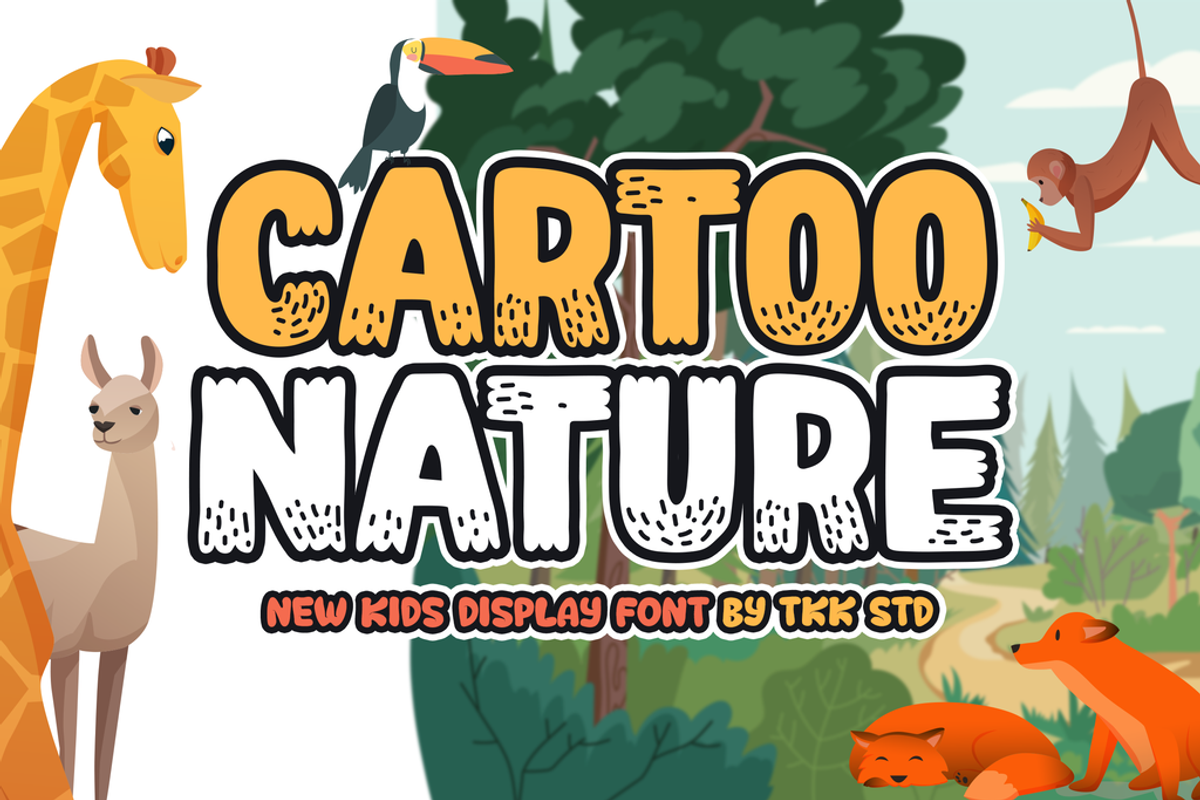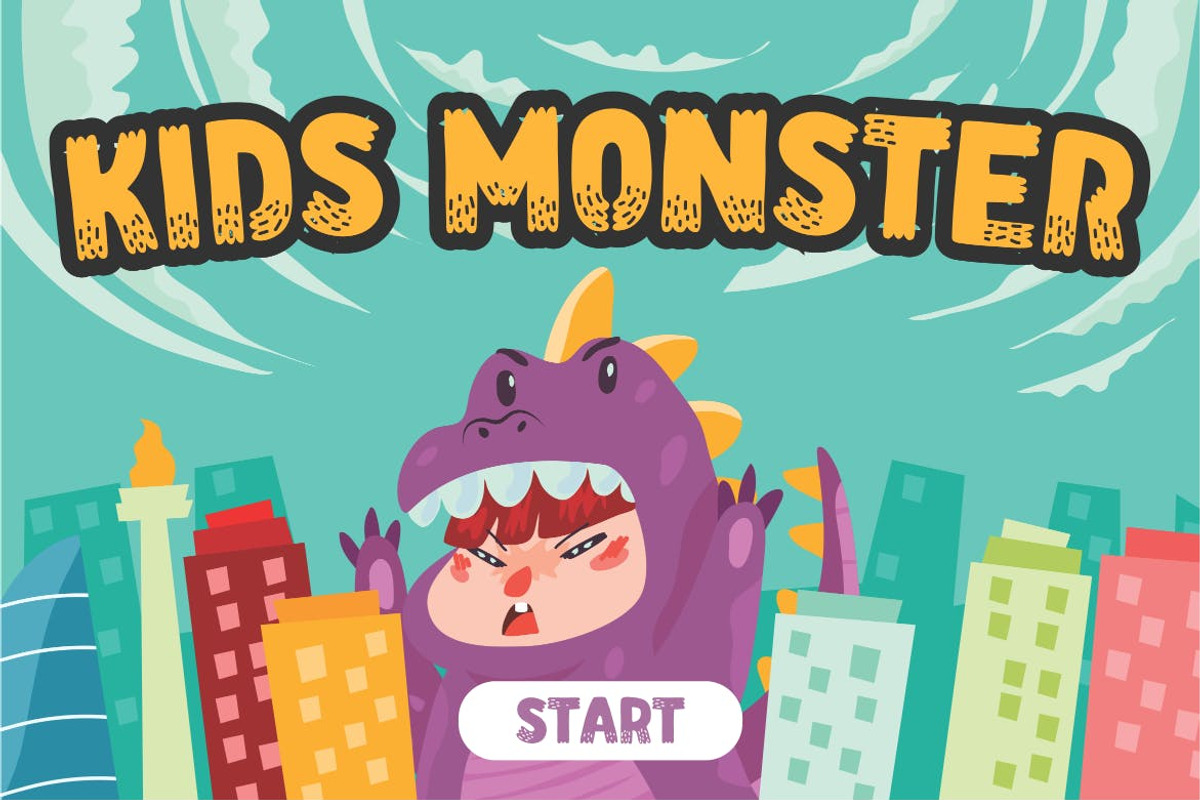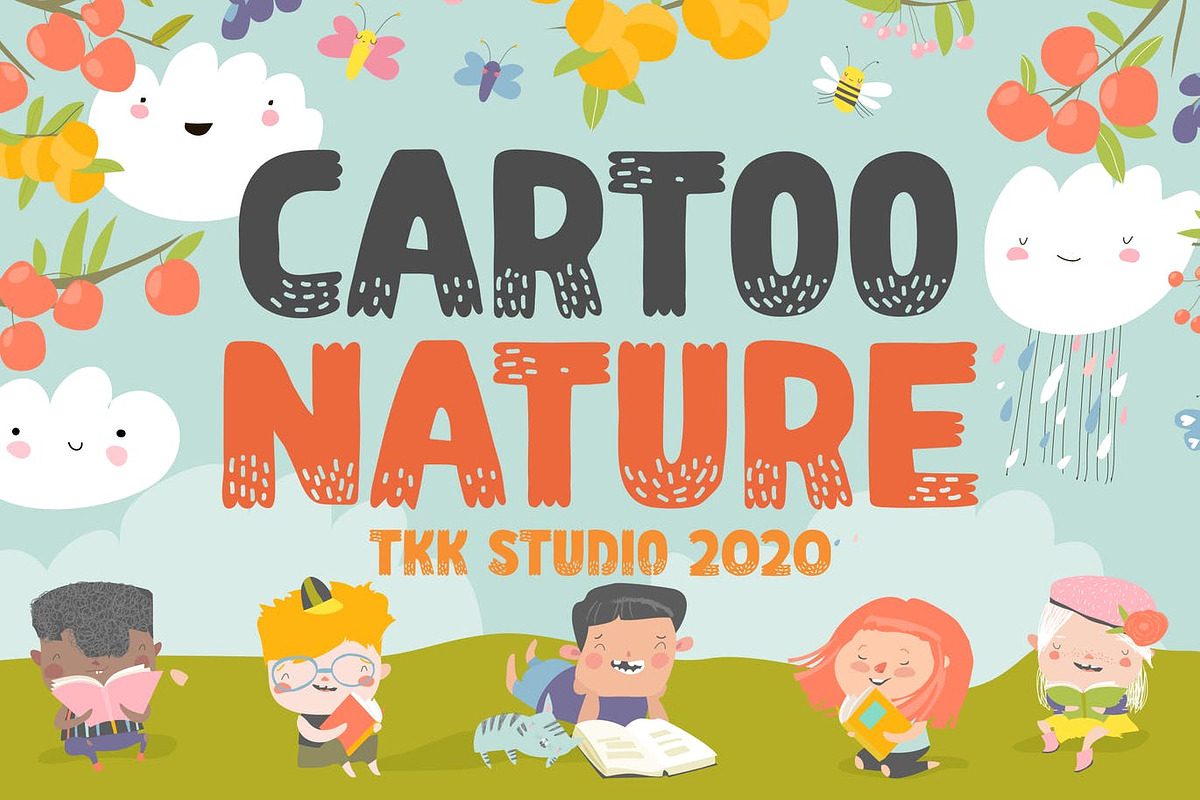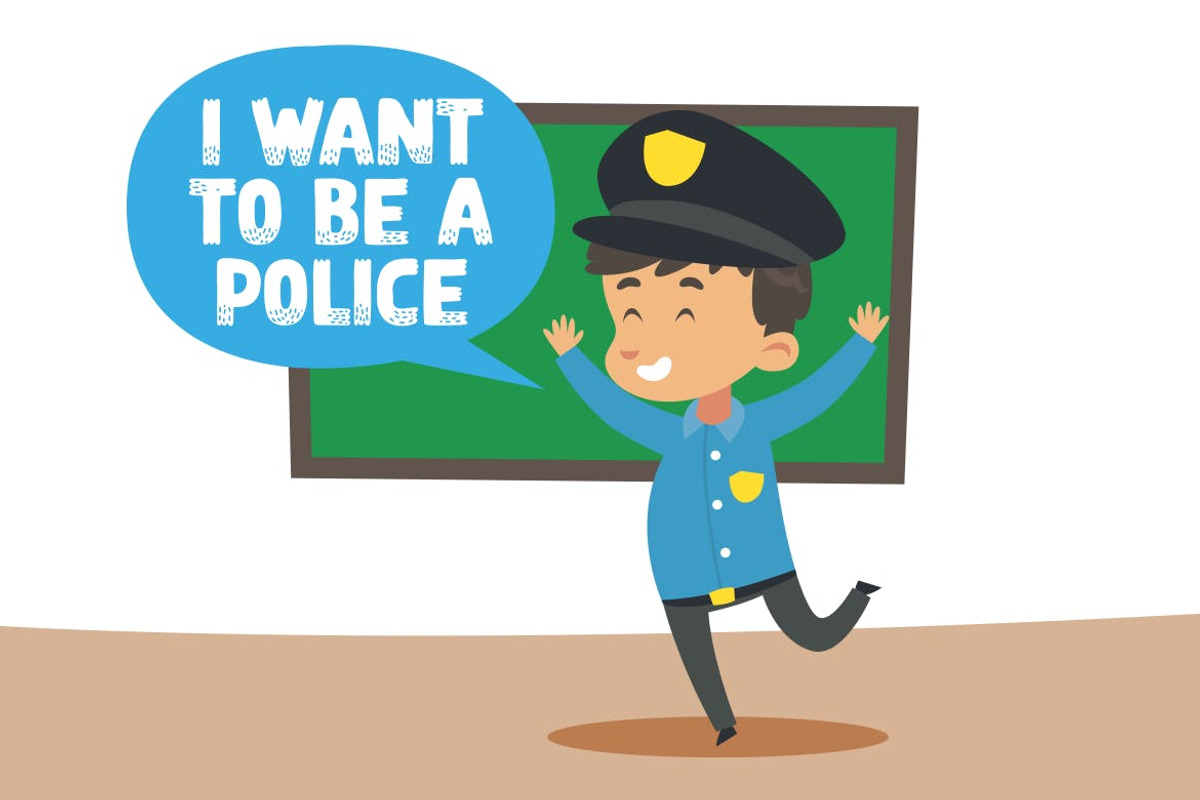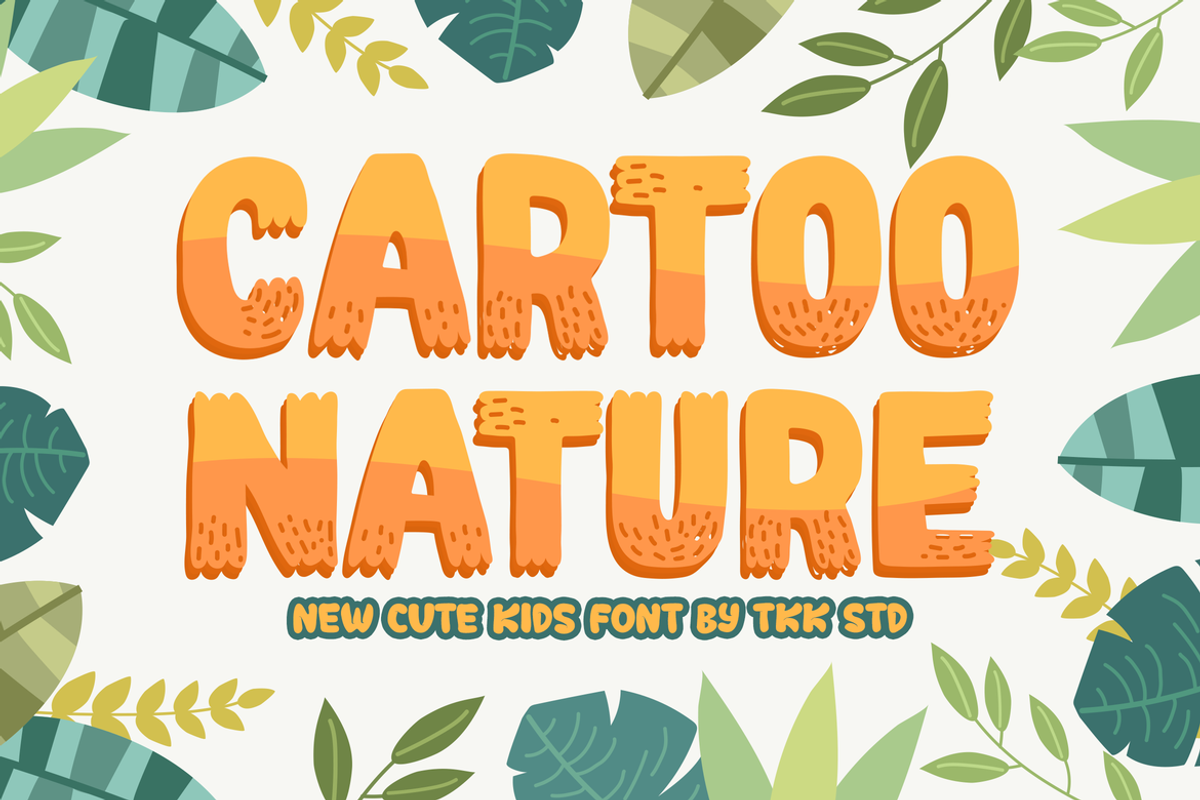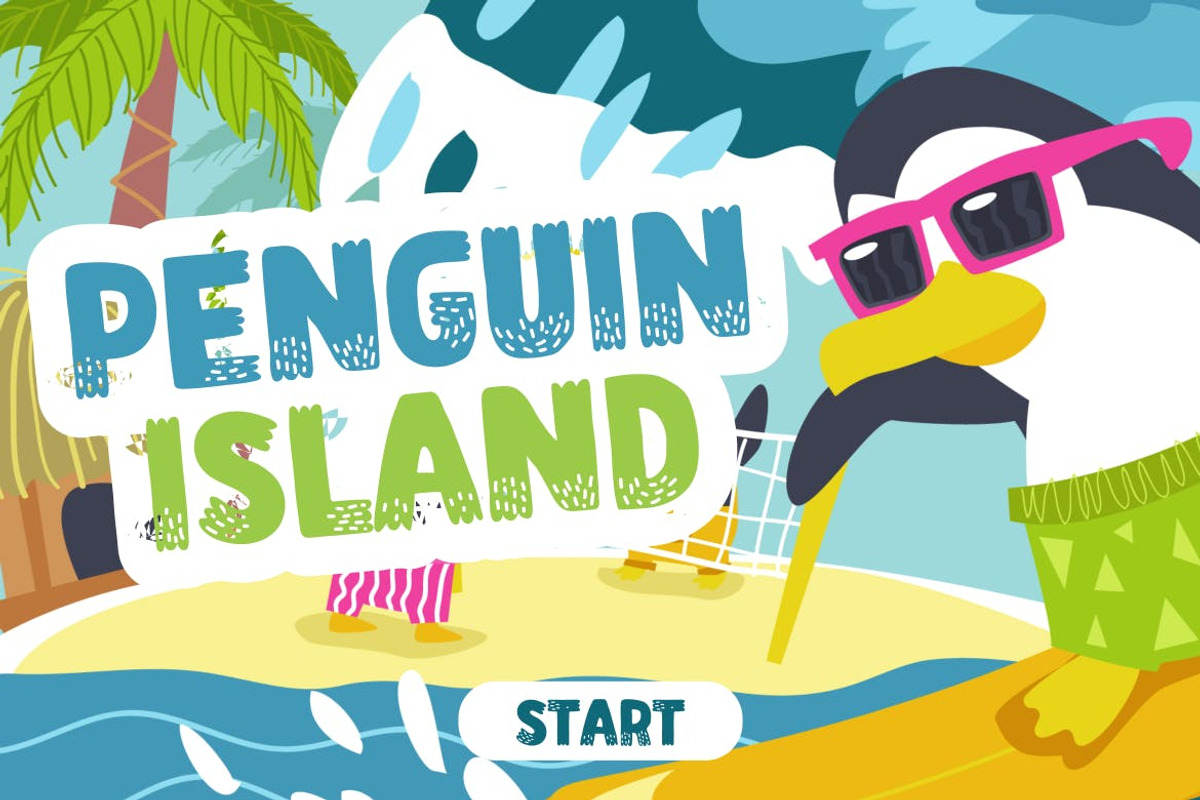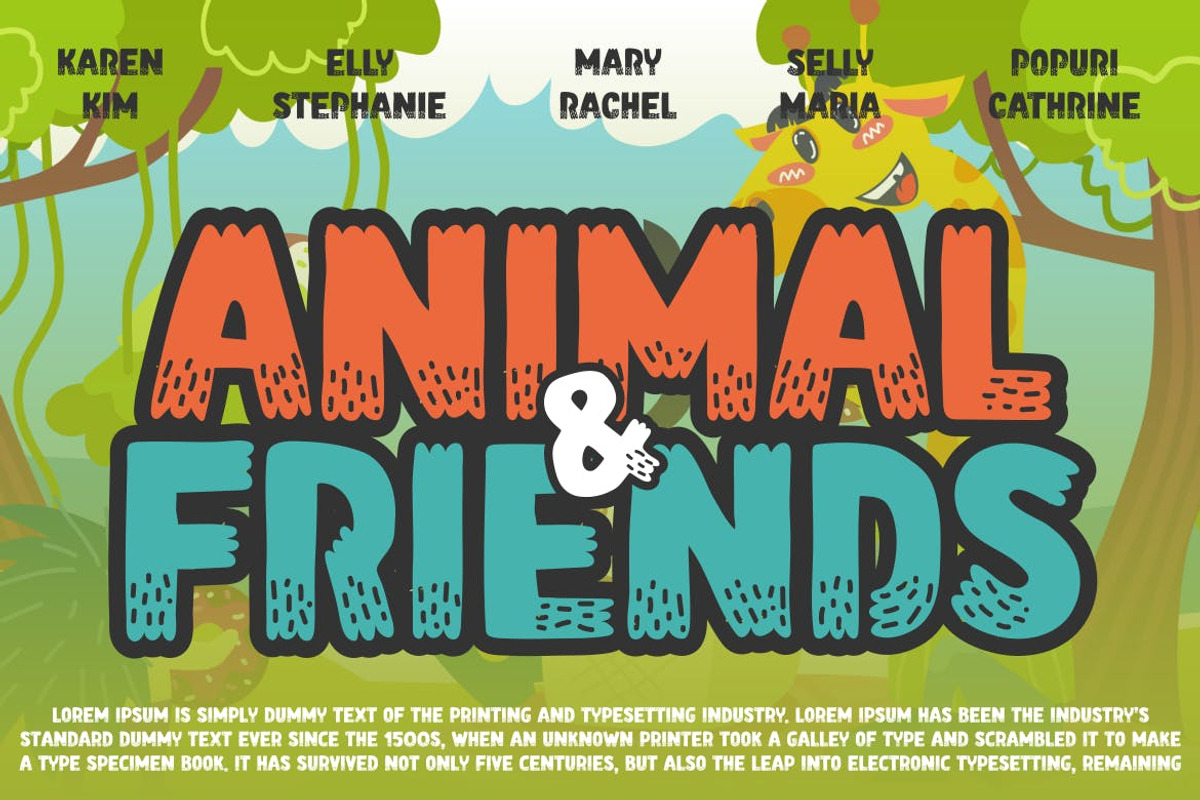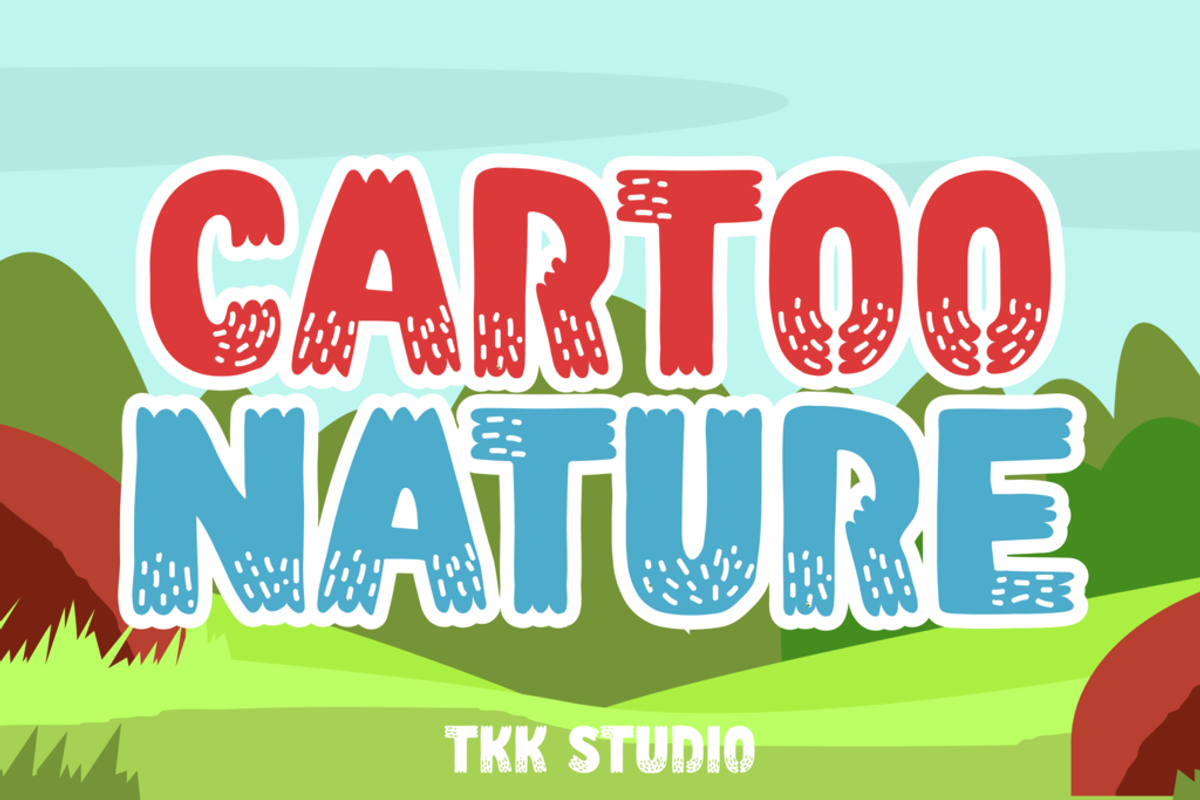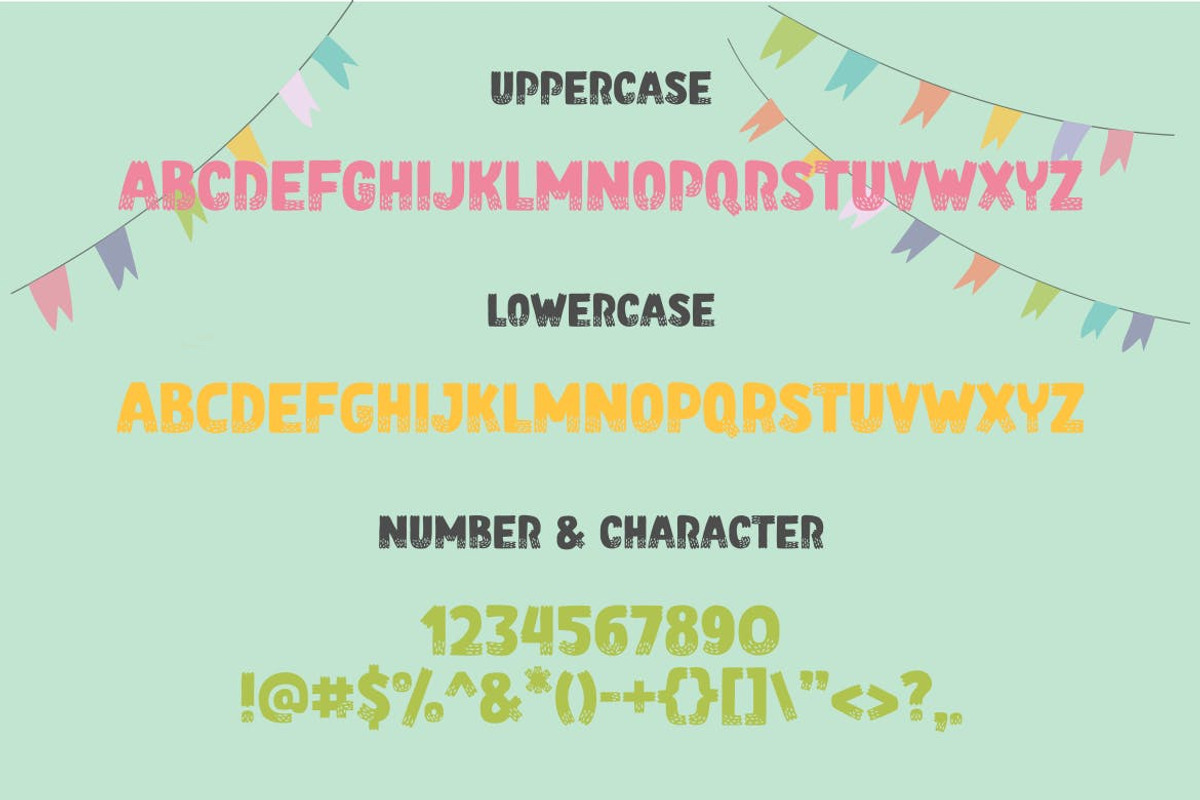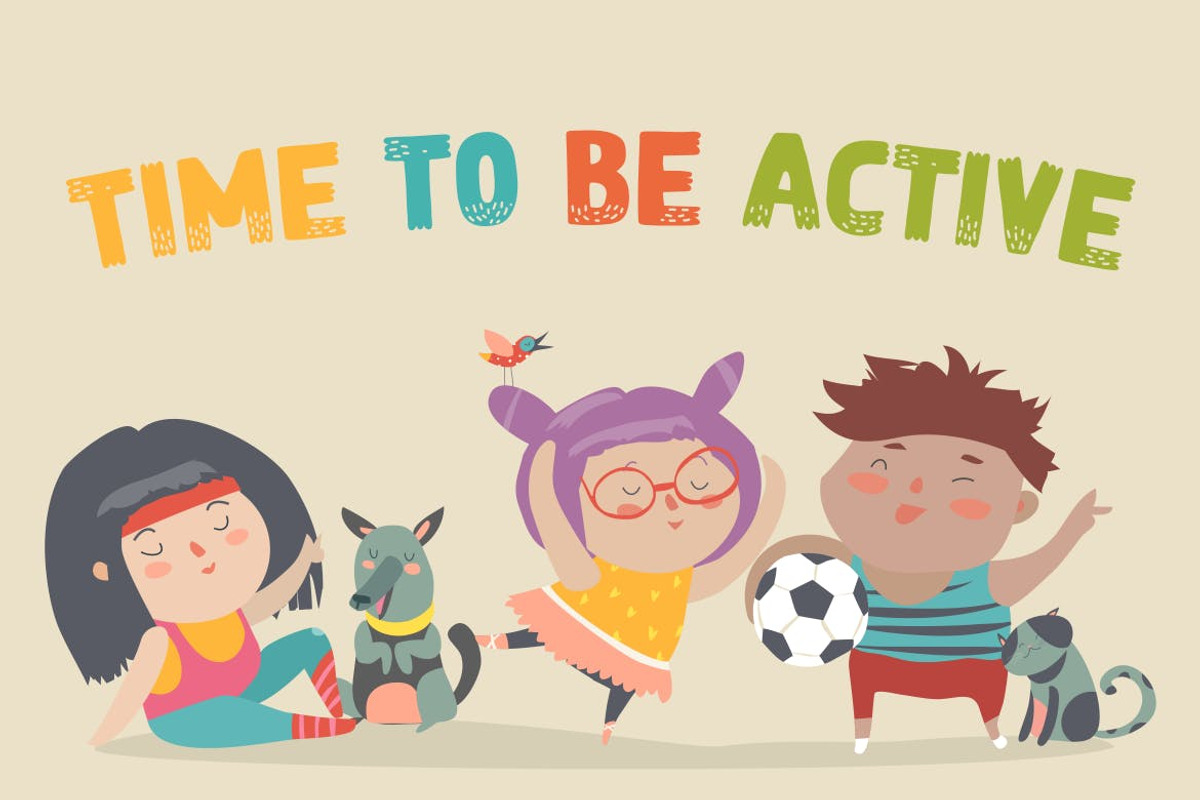
Cartoo Nature - Cartoon Font
Cartoo Nature cartoon font is a jungle vibe kids font, with a funny and happy feelings all around it. Suit perfectly for Online Games, poster, movie title, fast food menu, magazine, youtube covers, youtube thumbnails, social media page covers and so on…